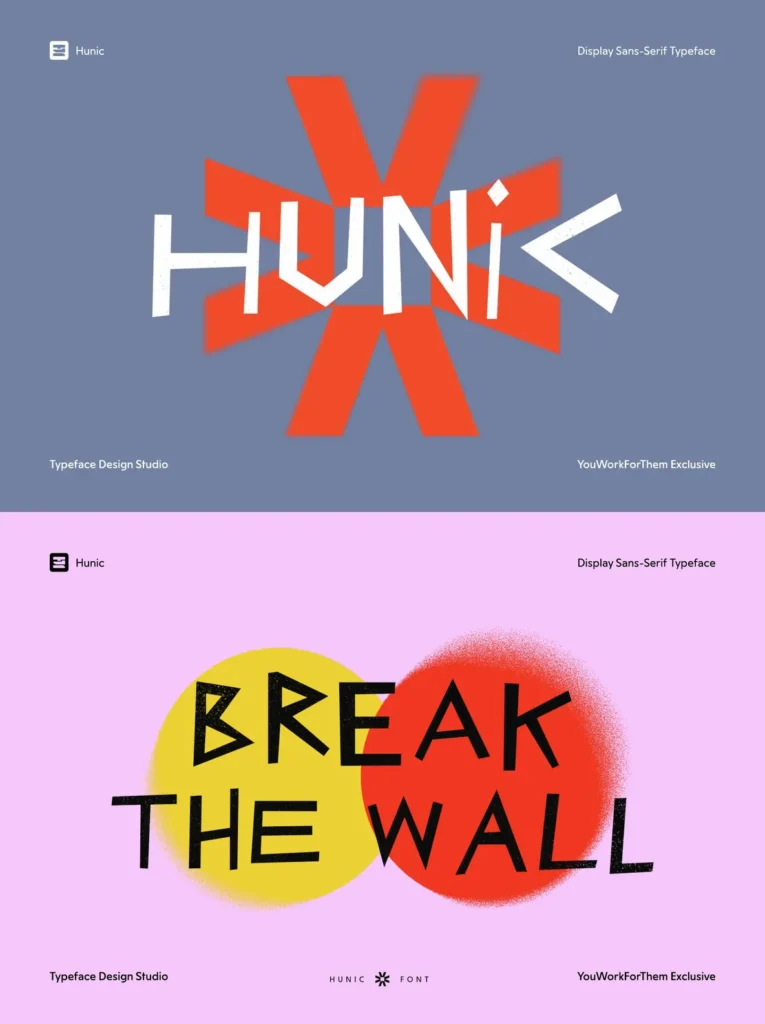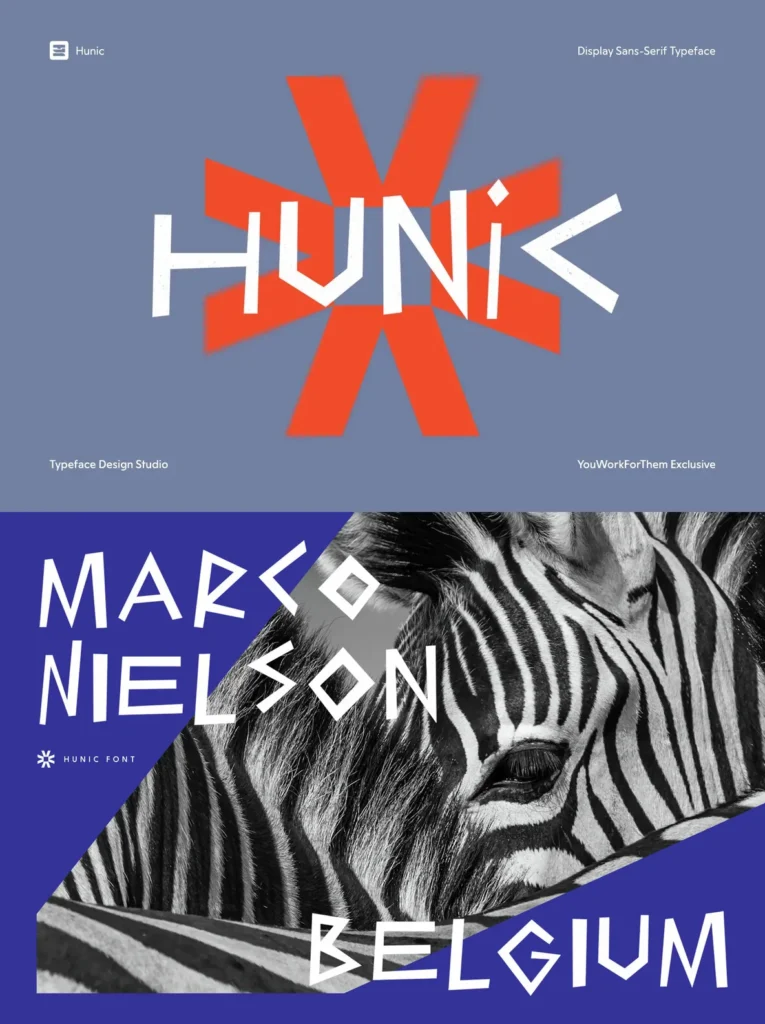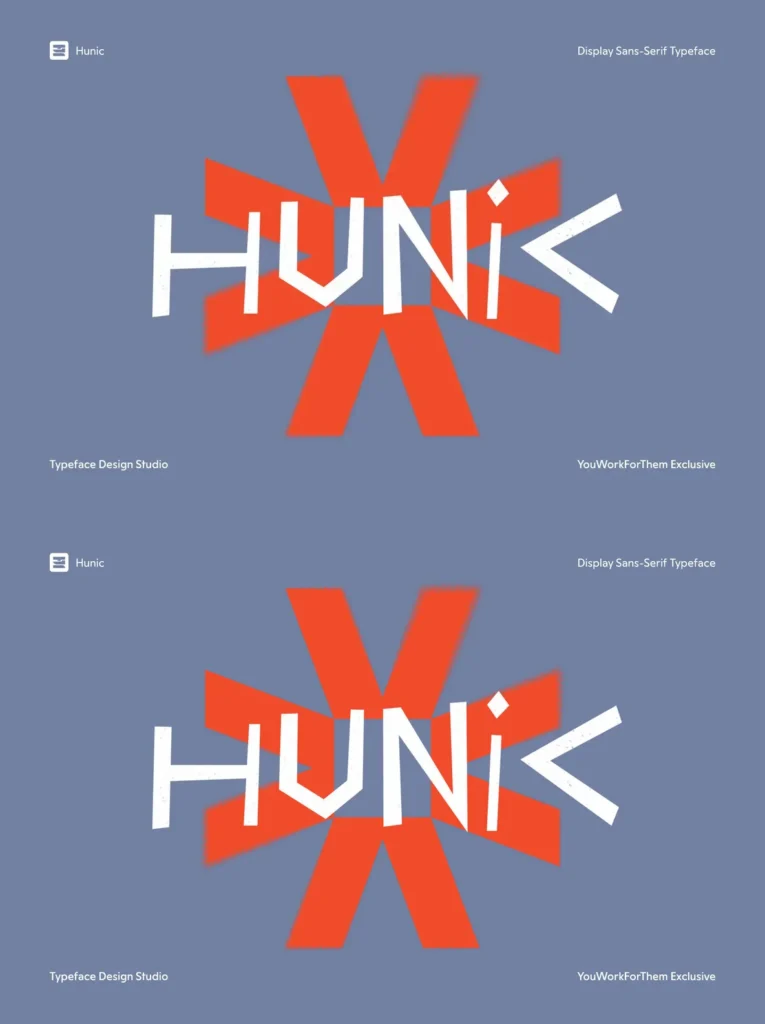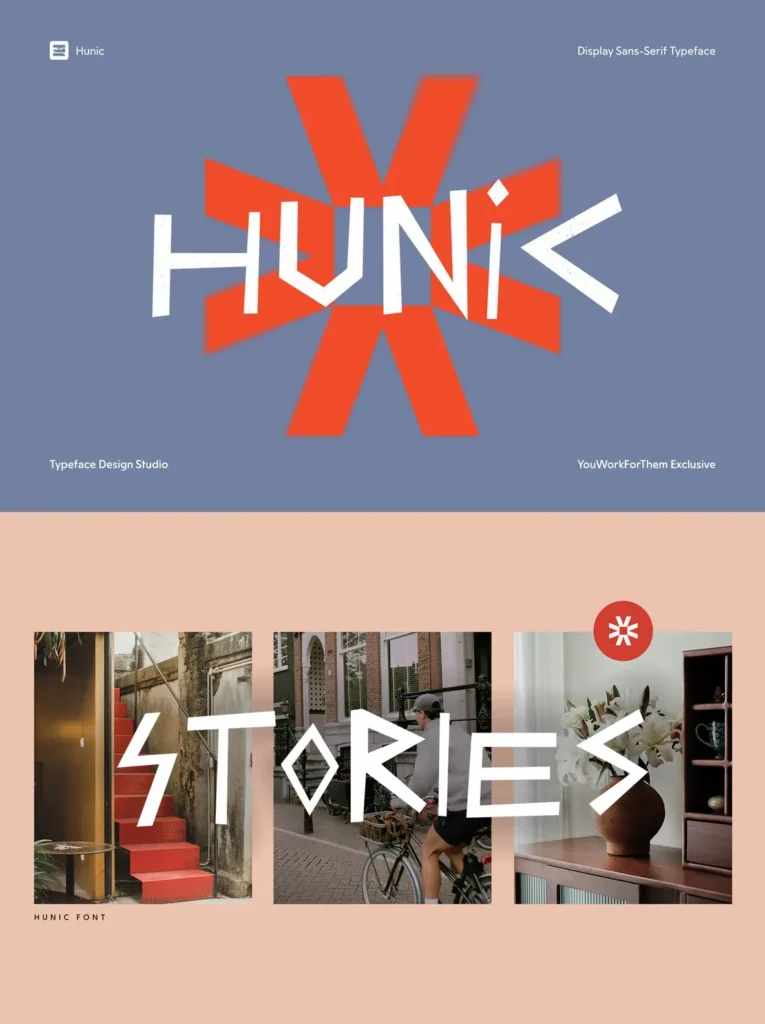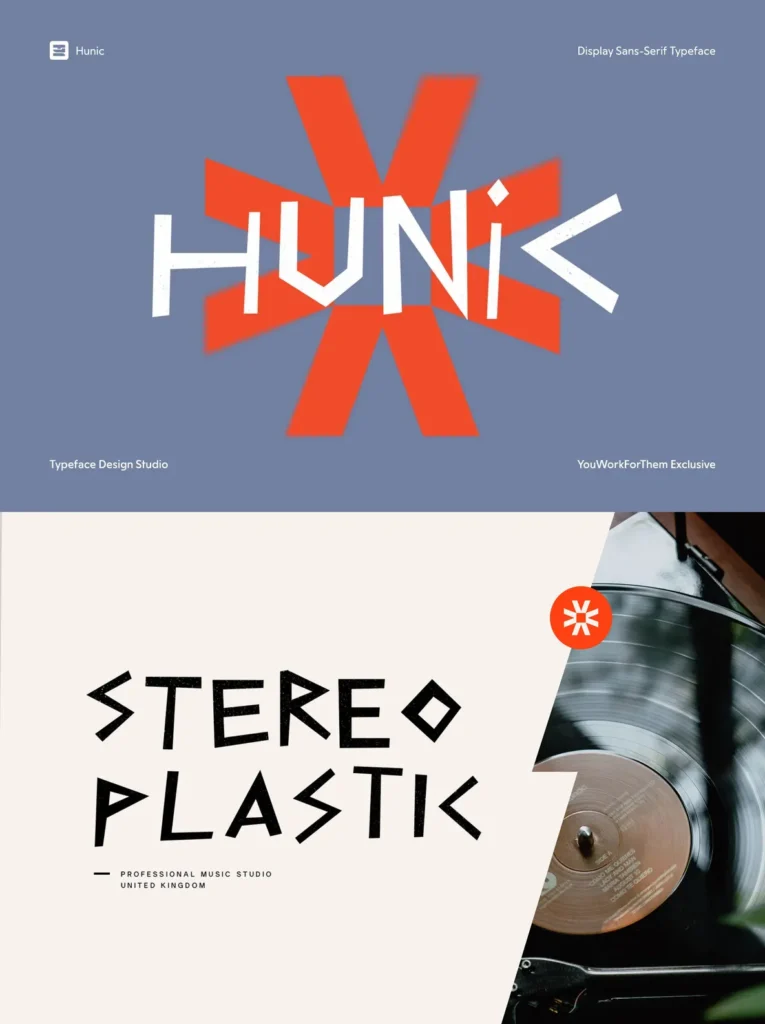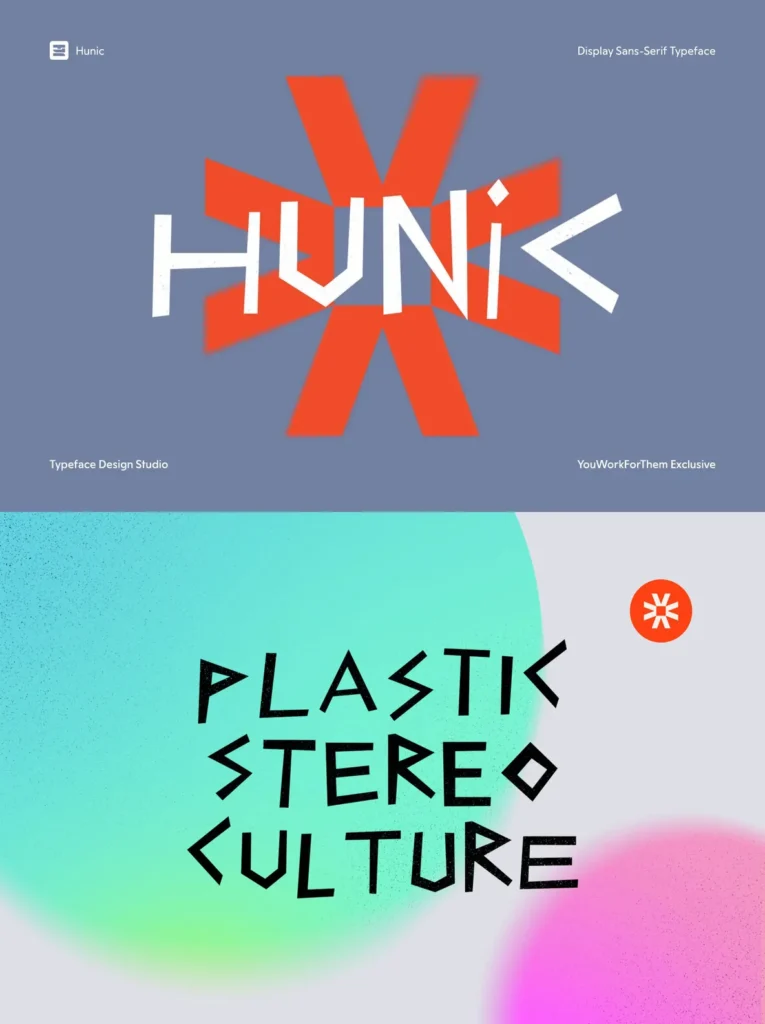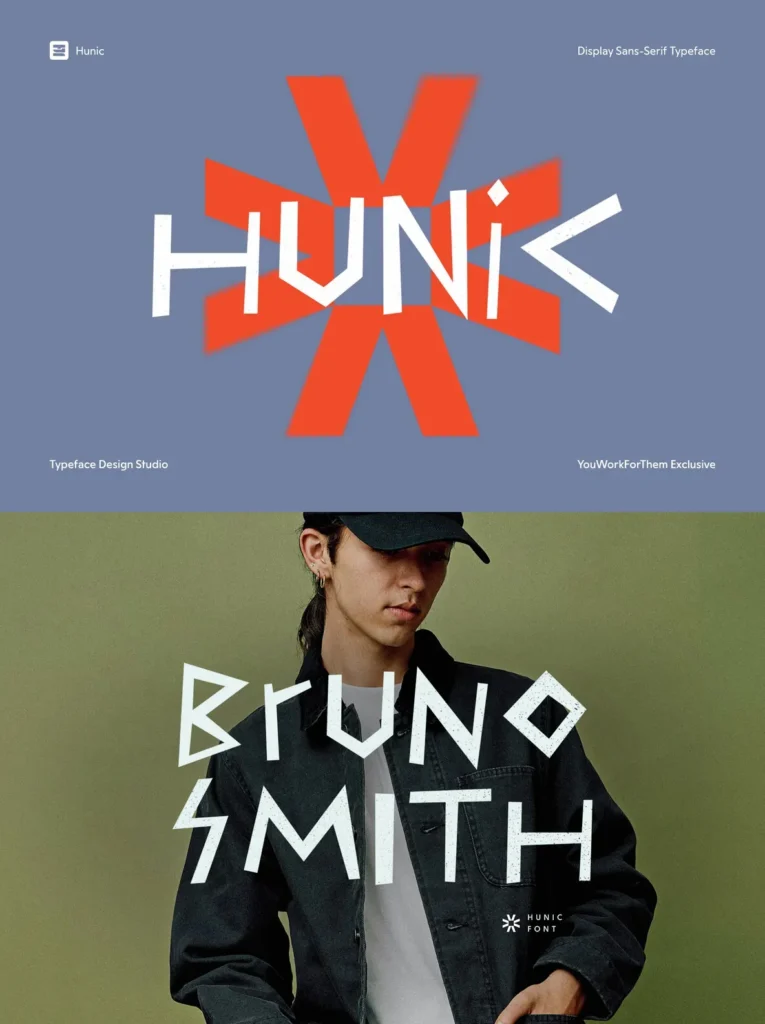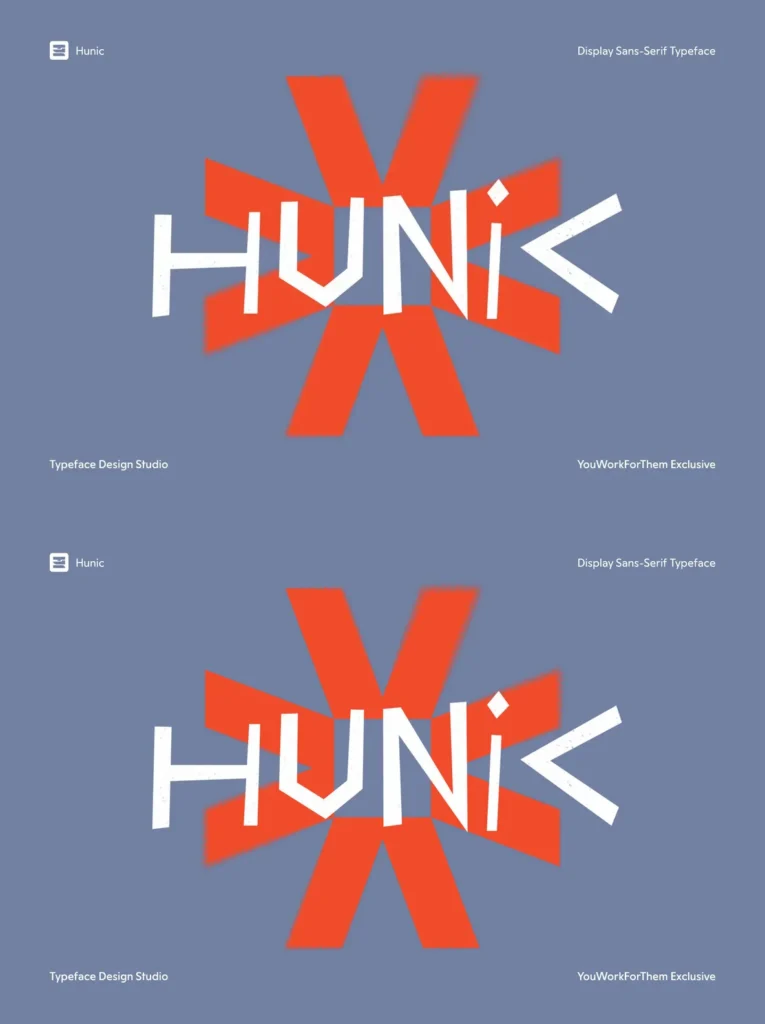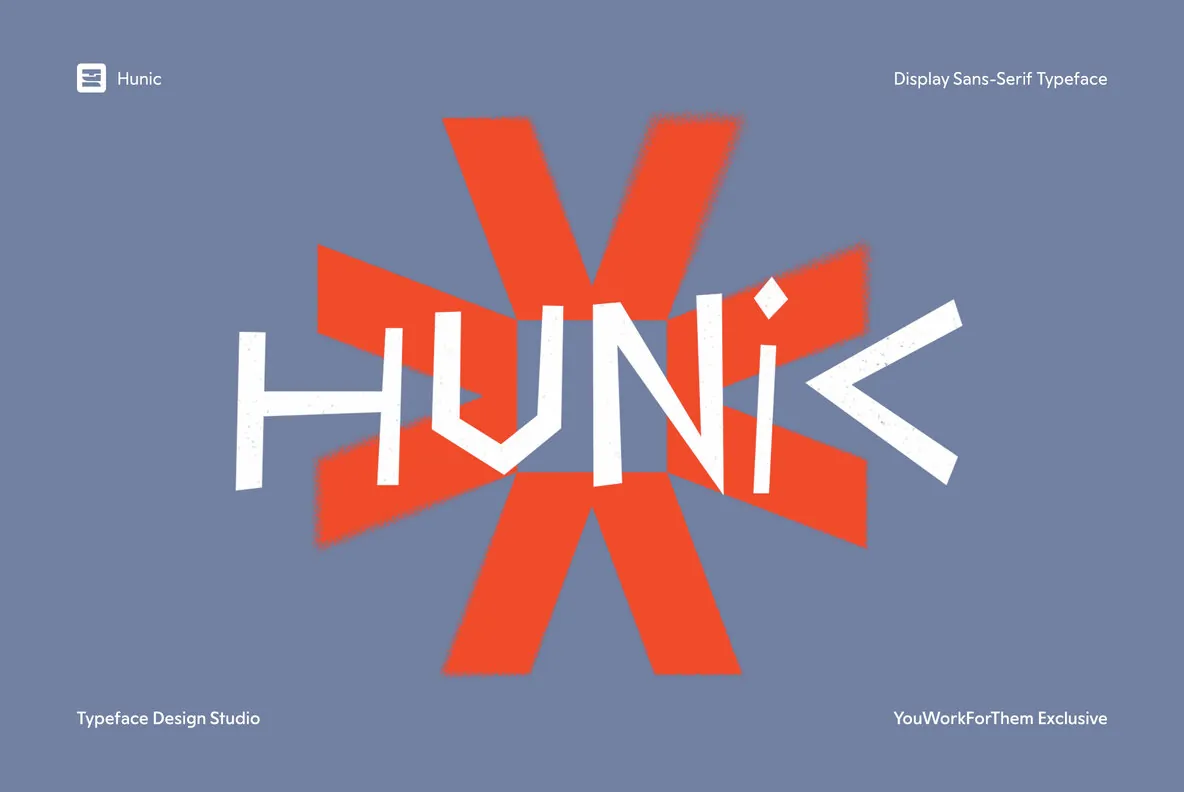
Hunic Font: An Experimental Sans Serif
Hunic is an exclusive sans serif with a unique character, featuring hand-cut angular shapes and alternate forms. Ideal for the creative designer looking for something unconventional, Hunic delivers a playful tension across its glyphs, setting the stage for intriguing visual narratives. Its clear readability combined with an edgy aesthetic makes it an excellent choice for fashion projects, poster design, or album visuals.
With its distinctive style, Hunic offers a bold statement for global creatives wishing to differentiate their message.